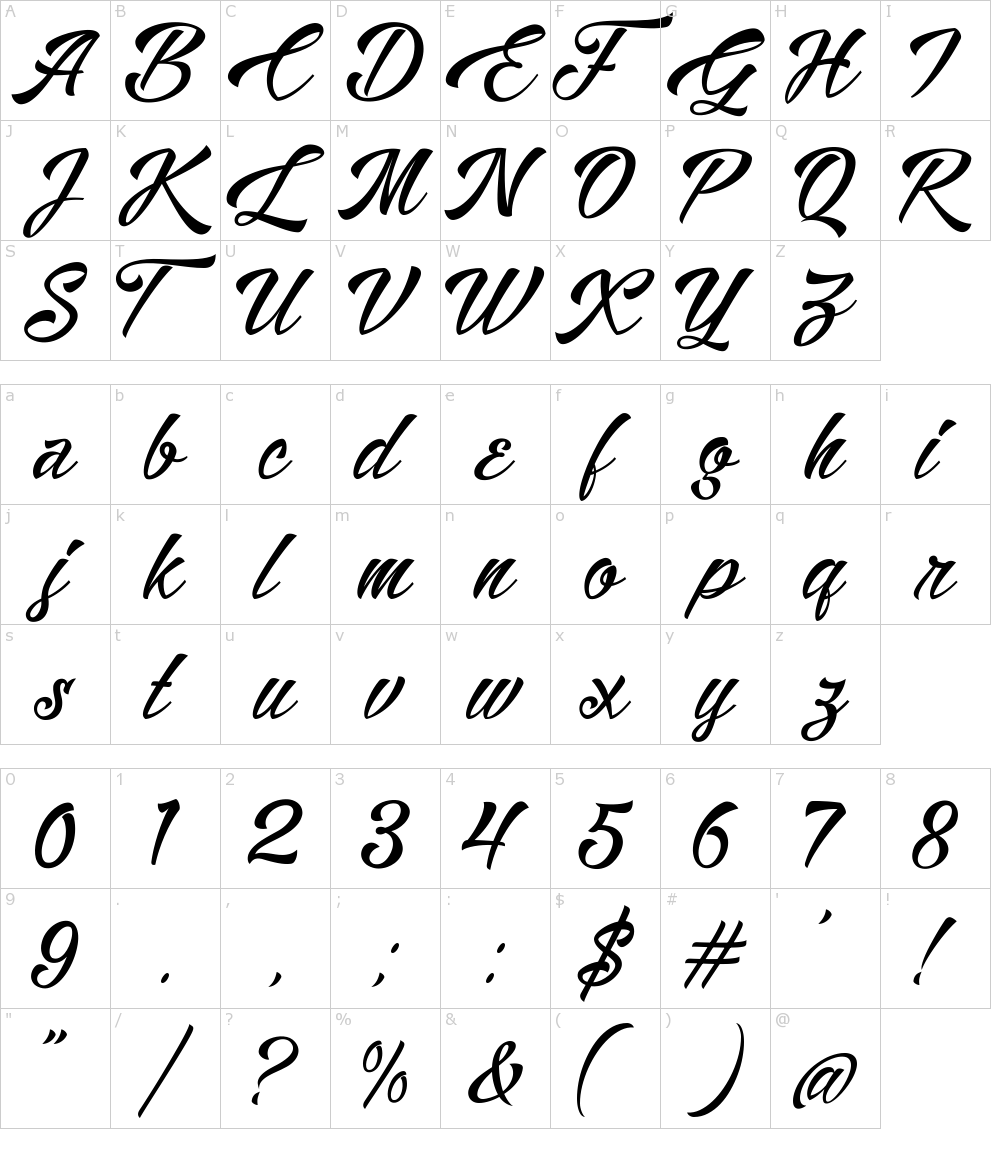
alisandra
Discover the Versatility of Alisandra Font
Alisandra Font, created by renowned designer Alex Smith in 2022, embodies sophistication and modernity, making it an excellent choice for designers looking to elevate their projects. This font is perfect for use in branding, invitations, logos, and digital media, ensuring your designs capture attention and convey elegance.
Features and Formats of Alisandra Font
The Inspiration Behind Alisandra Font
Inspired by a blend of modern aesthetics and classic typography principles, Alisandra Font aims to provide both style and functionality. Designed with meticulous attention to detail, it incorporates subtle curves and elegant strokes that enhance readability while offering a touch of sophistication.
Ideal Use Cases for Alisandra Font
Alisandra Font excels in various applications - from web design to print materials. Whether you’re crafting a memorable logo, designing chic business cards, or preparing striking social media graphics, this font’s versatility and elegance make it a top choice for professionals in any industry.